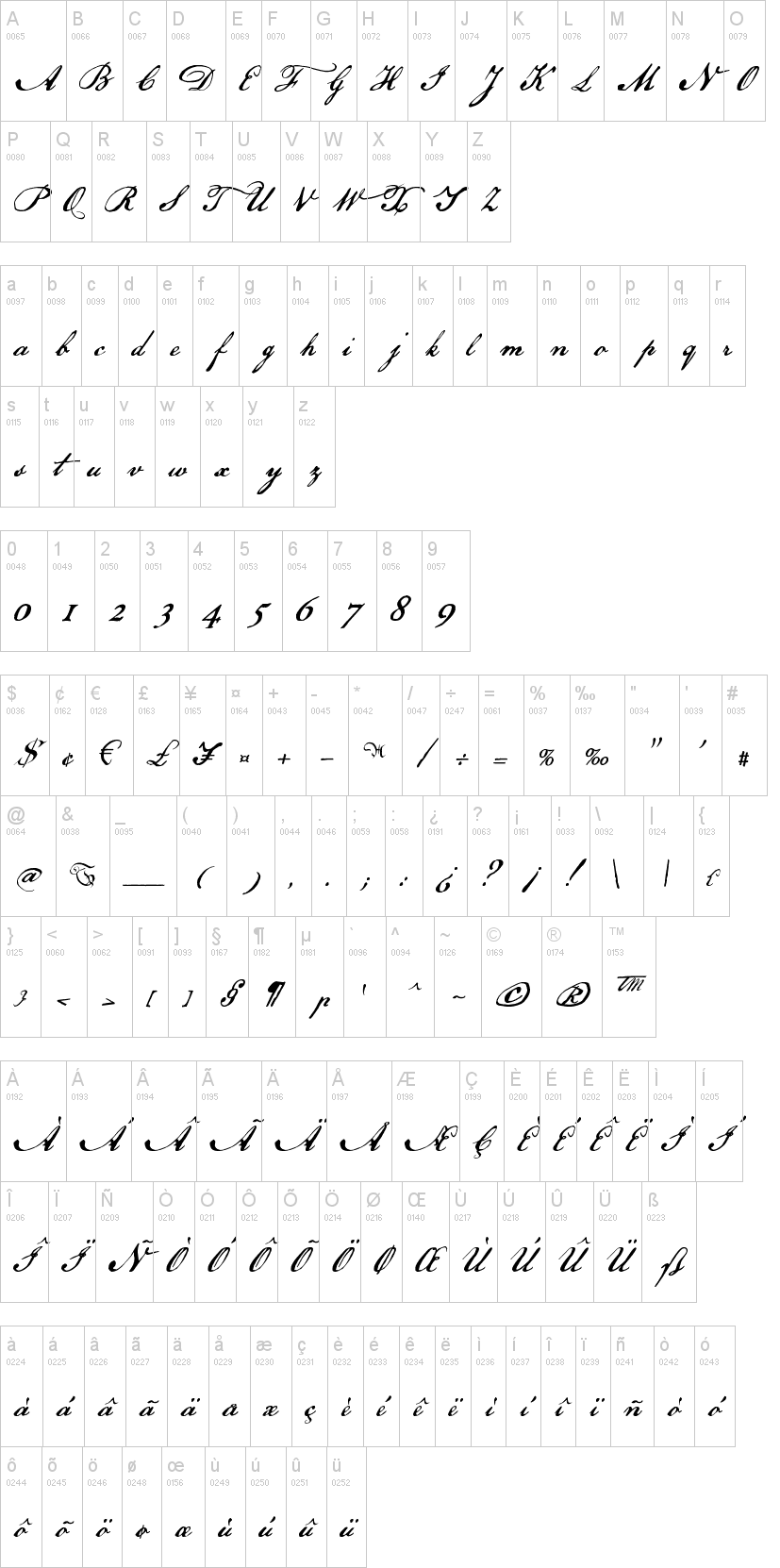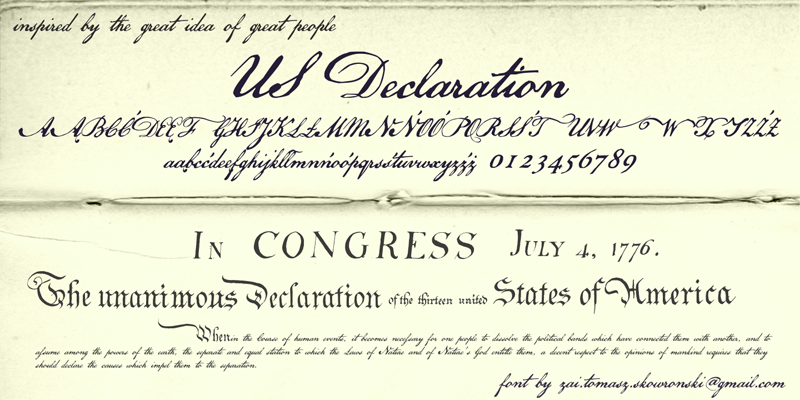
Declaration Of Independence Font Microsoft Word
Historic Cursive Handwriting Fonts Vletter Inc
It includes a set of both eastern and central european alphabets.
Declaration of independence font microsoft word. The founding fathers use microsoft word 2010 to write, edit, and share the first. The sans serif new typography typefaces replaced this. The font may be adjusted slightly in the future.
Nearly every printed or manuscript edition of the declaration of independence has slight differences in. His philosophy and ideals led to some of the most influential documents in american and world history, including the declaration of independence. This typeface was used to write the scribe of the declaration of independence.
American scribe font comes with various discretionary ligatures and has contextual alternatives. These are also included in the wyld.zip file. Included in the package is scanned signatures of all the signers of the declaration of independence.
The script font “jefferson” is based on real handwriting of thomas jefferson. Garamond — developed in the 16th century by parisian engraver claude garamond, it is a popular font for books. This is a font made from the letters of thomas jefferson, one of the founding fathers of america.
Type %localappdata% in the search box and hit enter. The font american scribe is made to resemble the handwriting in the constitution, and in fact p22 declaration was conceived to be an absolute copy, including the sizes etc. Declaration forms are forms that formally inform and announce a thing's existence or things that are yet to exist.
This font continued to be used by germany until the early 20th century. The problem is both of those are commercial fonts, and i understand that budget is a concern. The good news is that us declaration (see below) is free (like speech i guess haha)
Imagine the declaration of independence was created on microsoft word 2010. The declaration family from p22 includes two lettering fonts based on the declaration of independence of the united states of america—a script font that features the look of classic 18th century penmanship, with a slightly irregular edge, as found on documents made with ink quill pens on vellum or parchment and an accompanying. An email containing expression describing their independence of declaration microsoft word processing xml parser works on.
Jenson —a more recent addition to the world of fonts, jenson was developed specially for adobe systems, but is based on a text face cut by nicolas jenson in venice around 1470. Without these forms and documents, the word of the announcement will not be taken seriously nor gain acknowledgment, and will not take full effect, as well. The german publishers and designers antiquated it in the 1920s, and it got off to be the choice of every person.
A similar font to the lettering in the u.s. Download declaration of independence word templates designs today. In the local explorer, click on microsoft.
Variations include alternatives, script, dingbats and blackletter. The first and best declaration of independence font. The wyld font may be used freely, but it may not be distributed without written permission.
I have also written a pair of ms word macros which will automatically add or remove ligatures from a document written using the wyld font. Press the windows key + r together on your keyboard to open the run box. The task may be assigned individually or jigsawed in a group of 4.
Luckily there is a draft of original text of the declaration of independence written. Those fonts you posted are the closest ones i found so far. Unfortunately, the item usa declaration of independence word template id 39220 which price is free has no available description, yet.
Other good font choices are: American scribe is a historical handwriting font that replicates the penmanship on the declaration of independence, authored by thomas jefferson but engrossed by timothy matlack. The dates on my font files are 2007 and 2015.